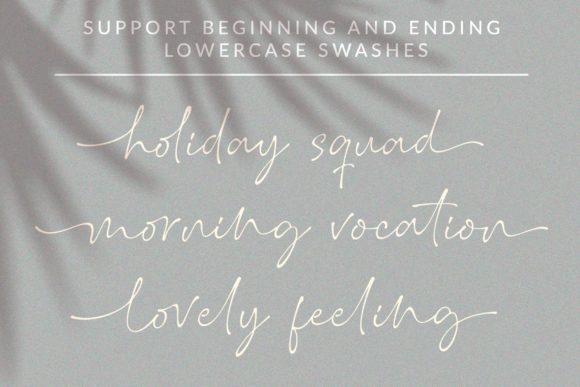
About Shout Haters Font
Shout Haters is a stylish and dainty script font. It is suitable for any projects such as: logos, branding projects, label, photography, watermark, special events, and all your other lovely projects that need a beautiful script taste.